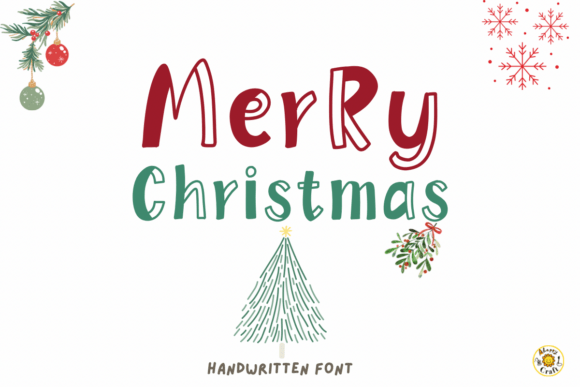
Introduction to Ribbon Christmas Font Font
Ribbon Christmas is a bold, playful handwritten display font full of festive energy and cheerful personality.
Inspired by the look of hand-drawn holiday crafts and Christmas decorations, Ribbon features quirky, chunky letterforms with subtle irregularities that add charm and warmth The fun, slightly exaggerated shapes make it ideal for kids’ projects, Christmas cards, party invitations, and any design needing a touch of joyful character.